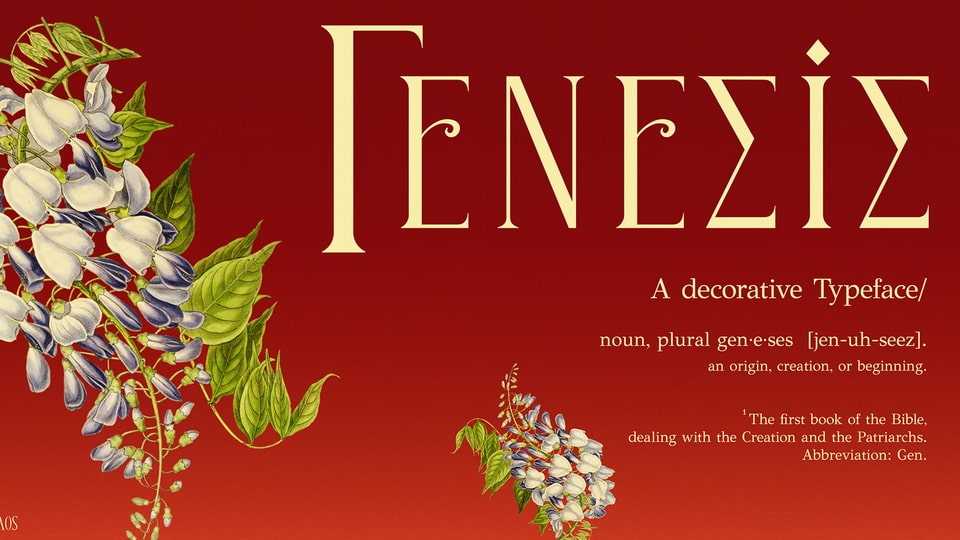
Download Genesis font, an organic, serif typeface inspired by the Art-Deco movement, supporting the Greek and English capital letters, numbers and various symbols. It’s usage is recommended to include projects with big titles such as cards, posters, covers, etc.